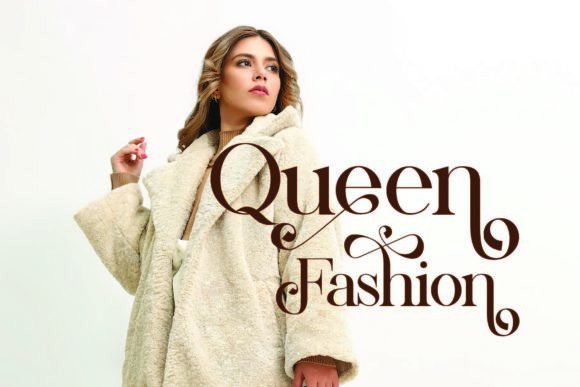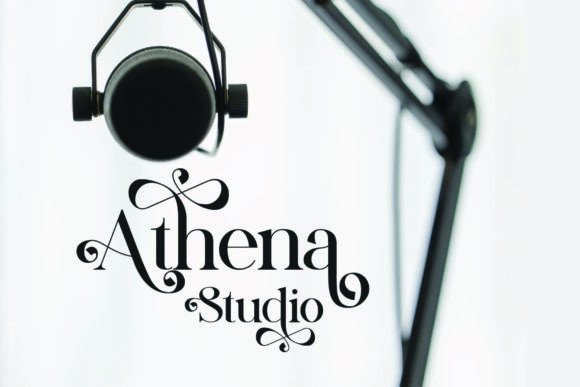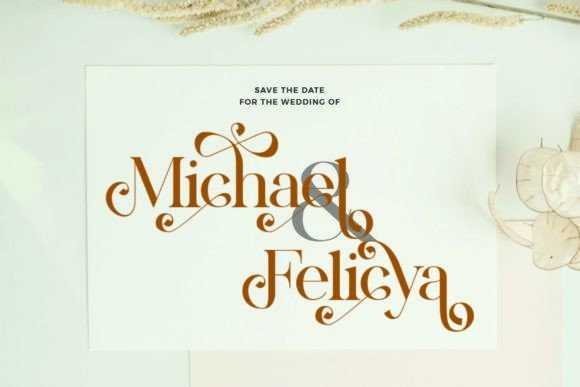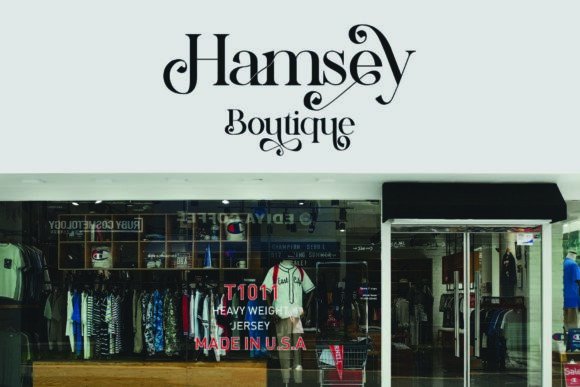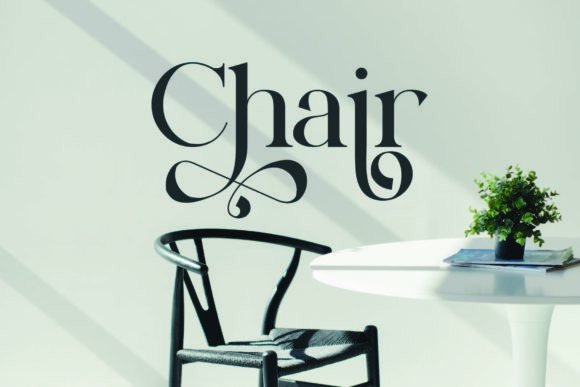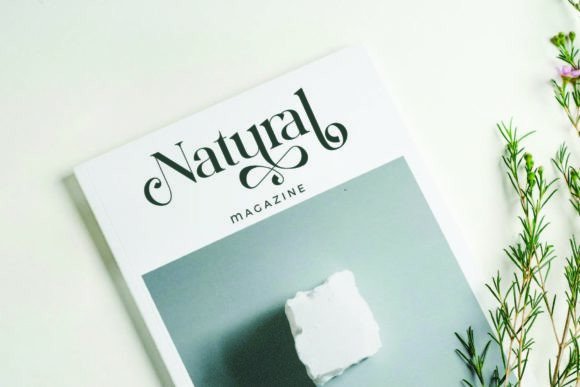
Introduction to Mackin Font
Have you ever been stuck on a creative project, desperately searching for the perfect font to bring your vision to life? We’ve all been there – hours of browsing through design resources, scrolling through endless options, and still, nothing seems to fit quite right. But what if you stumbled upon a font that effortlessly elevates your design, making it stand out from the crowd? Enter the Mackin Font, a stylish ligature typeface inspired by the famous minimalist logo.
This game-changing font is a must-have for designers looking to elevate their creative projects. With its sleek and modern design, the Mackin Font is perfect for designing templates, brochures, videos, and more. Whether you’re working on a branding project or creating a stunning logo, this high-quality font is sure to impress. And the best part? You can download it for free, making it an invaluable resource for any designer looking to take their work to the next level.
Mackin Font
- High-quality design resource with a unique, modern aesthetic
- Includes 5 font styles with varying weights and opacities
- Ideal for use in graphic design, digital art, and other creative projects requiring a high-quality, modern font
Honest Review: Mackin Font
As a designer, I’ve had the chance to explore a wide range of fonts for my creative projects. Recently, I came across the Mackin Font, and I’m excited to share my honest review with you.
- ✨ Unique and modern design style that adds a touch of sophistication to any project.
- ✨ High-quality font files that ensure smooth and precise rendering on various devices.
- ✨ Transparent background option, making it easy to use with any design element.
The Mackin Font is a great addition to any design resource library, offering a versatile and stylish option for creative projects. The free download makes it an attractive choice for designers on a budget.
- ⚠️ Limited character set, which might not be suitable for complex text-based designs.
- ⚠️ Not ideal for small text sizes, as the font may become pixelated.
Overall, I’m impressed with the Mackin Font’s design and quality. While it may have some limitations, it’s a valuable resource for designers looking for a modern and high-quality font for their creative projects.
Mackin Font
The Mackin Font is perfect for a variety of creative projects, including logos, brochures, posters, and social media graphics. Its high-quality design makes it ideal for professional and personal use.